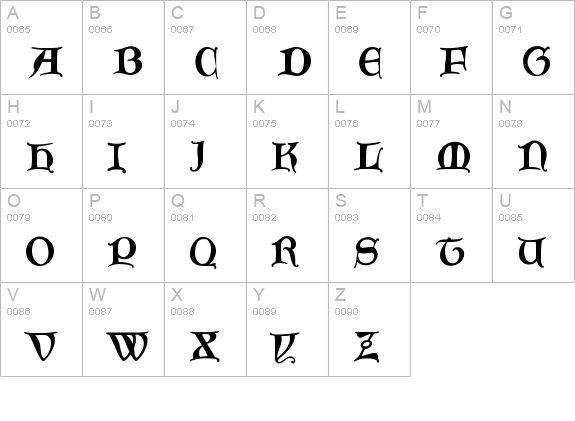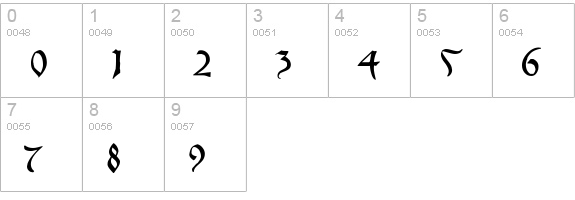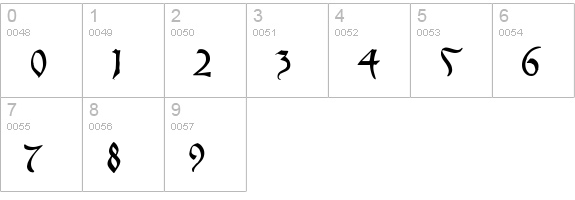
GoticaBastard Font Details
GoticaBastard is a unique and striking font that embodies a perfect balance between elegance and edginess. With its sharp angles and intricate details, this font exudes a sense of mystery and sophistication, making it the perfect choice for projects that require a touch of drama. The bold and distinctive characters of GoticaBastard will make your designs stand out and leave a lasting impression on viewers. The best part about GoticaBastard font is that it is available for free download at FontsMarket.com. Whether you are working on a personal project or a professional design, this font is a versatile and eye-catching addition to your collection. Don't miss out on the opportunity to enhance your designs with the captivating allure of GoticaBastard font. Download it today and let your creativity soar!